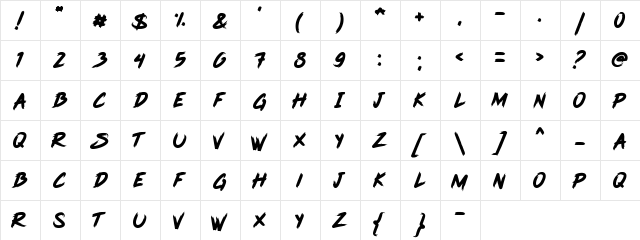
Pink Blue Regular
Design Context for Pink Blue Typeface
Pink Blue is a composed and adaptable typeface that performs quietly and consistently across a wide range of design contexts.